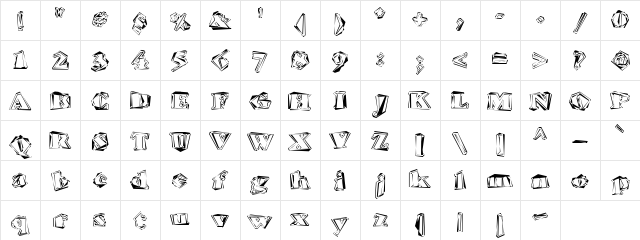
Hitech Regular
Design Context for Hitech Typeface
Hitech channels digital-age aesthetics through its sharp, structured letterforms — ideal for brands that want to signal innovation.
Pro Tip: Try Hitech with generous letter-spacing in UI labels and navigation — the geometric forms benefit from room to breathe.